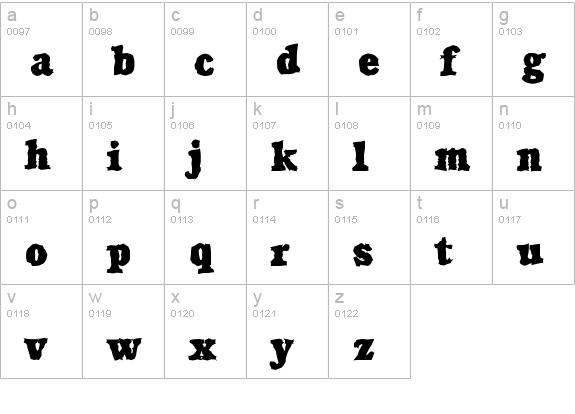
CalgaryRandom-Heavy-Regular is a heavy, high-impact variant in the CalgaryRandom typeface family \xE2\x80\x94 well suited to high-impact headlines, posters, and display advertising.
CalgaryRandom-Heavy-Regular font is a bold and dynamic typeface that exudes a sense of creativity and modernity. With its unique random letter variations and heavy weight, this font is perfect for making a statement in your designs. Whether you're working on posters, logos, or branding materials, CalgaryRandom-Heavy-Regular will add a touch of individuality and flair to your projects. Best of all, CalgaryRandom-Heavy-Regular font is available for free download at FontsMarket.com. So you can easily access this eye-catching font and incorporate it into your work without any cost. Don't miss out on the opportunity to enhance your designs with the striking presence of CalgaryRandom-Heavy-Regular font. Download it now and unleash your creativity!